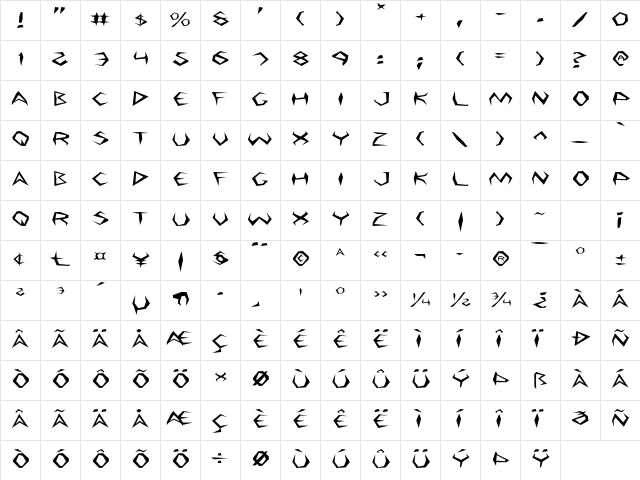
Argosy Expanded Expanded
Design Context for Argosy Expanded Typeface
Argosy Expanded is a composed and adaptable typeface that performs quietly and consistently across a wide range of design contexts.